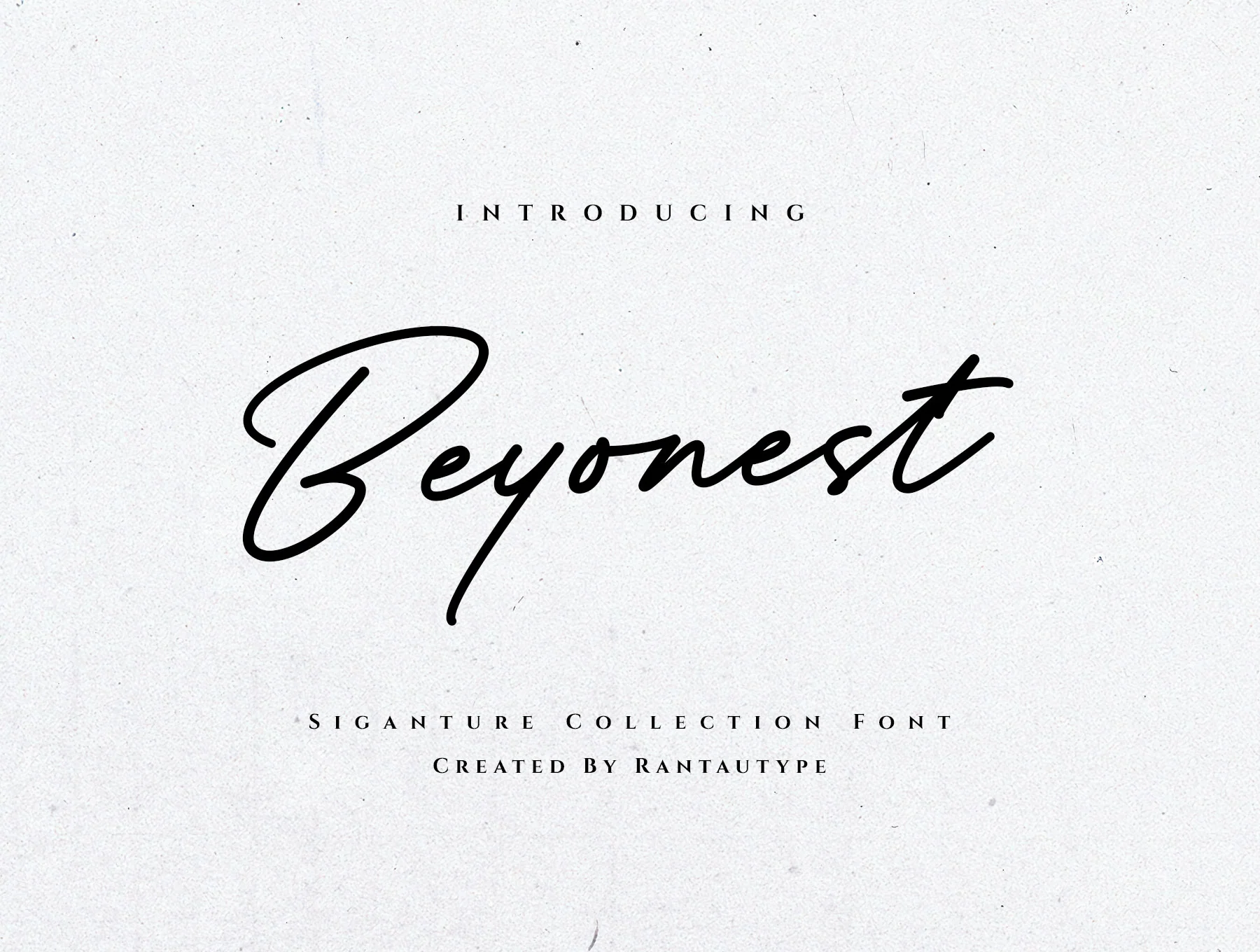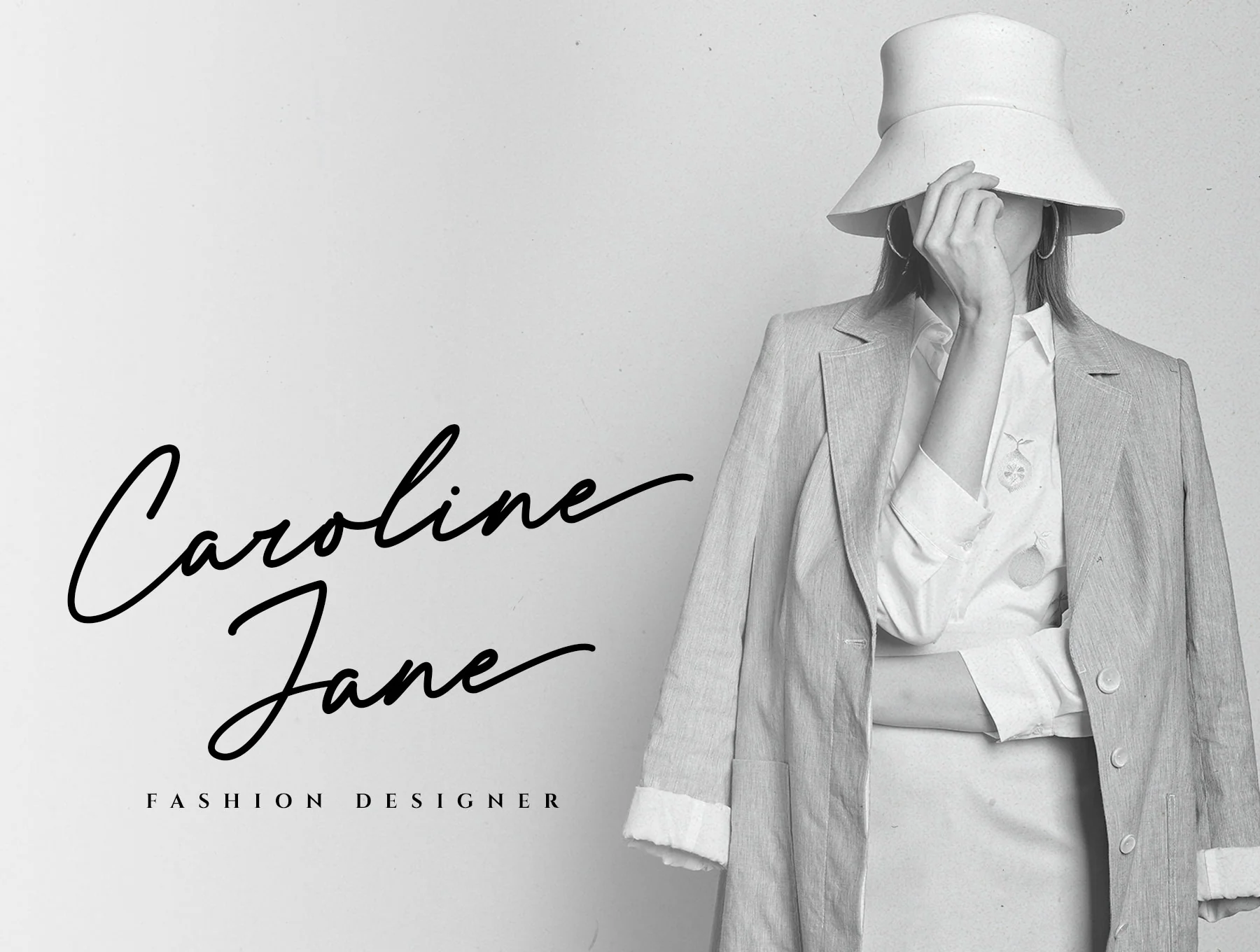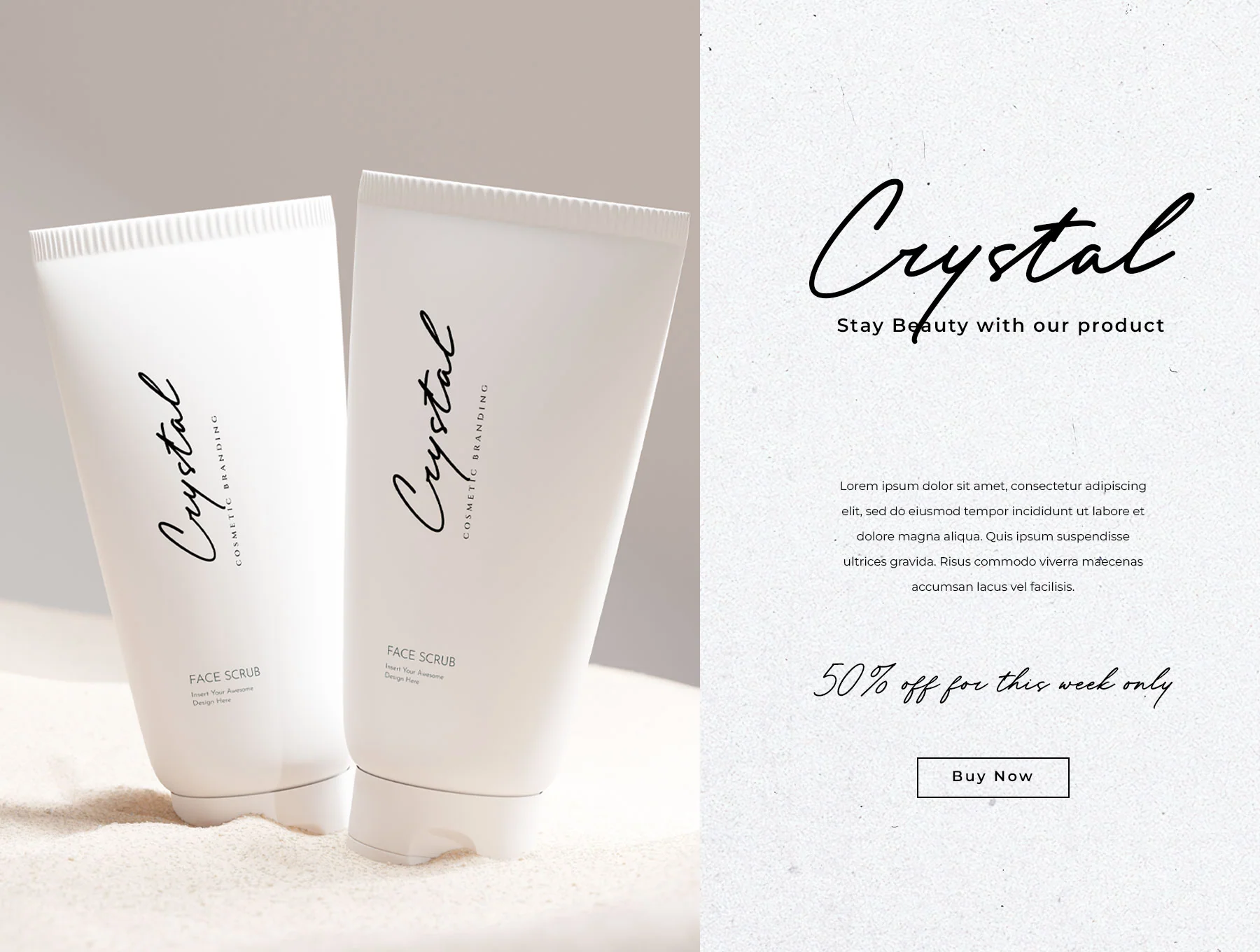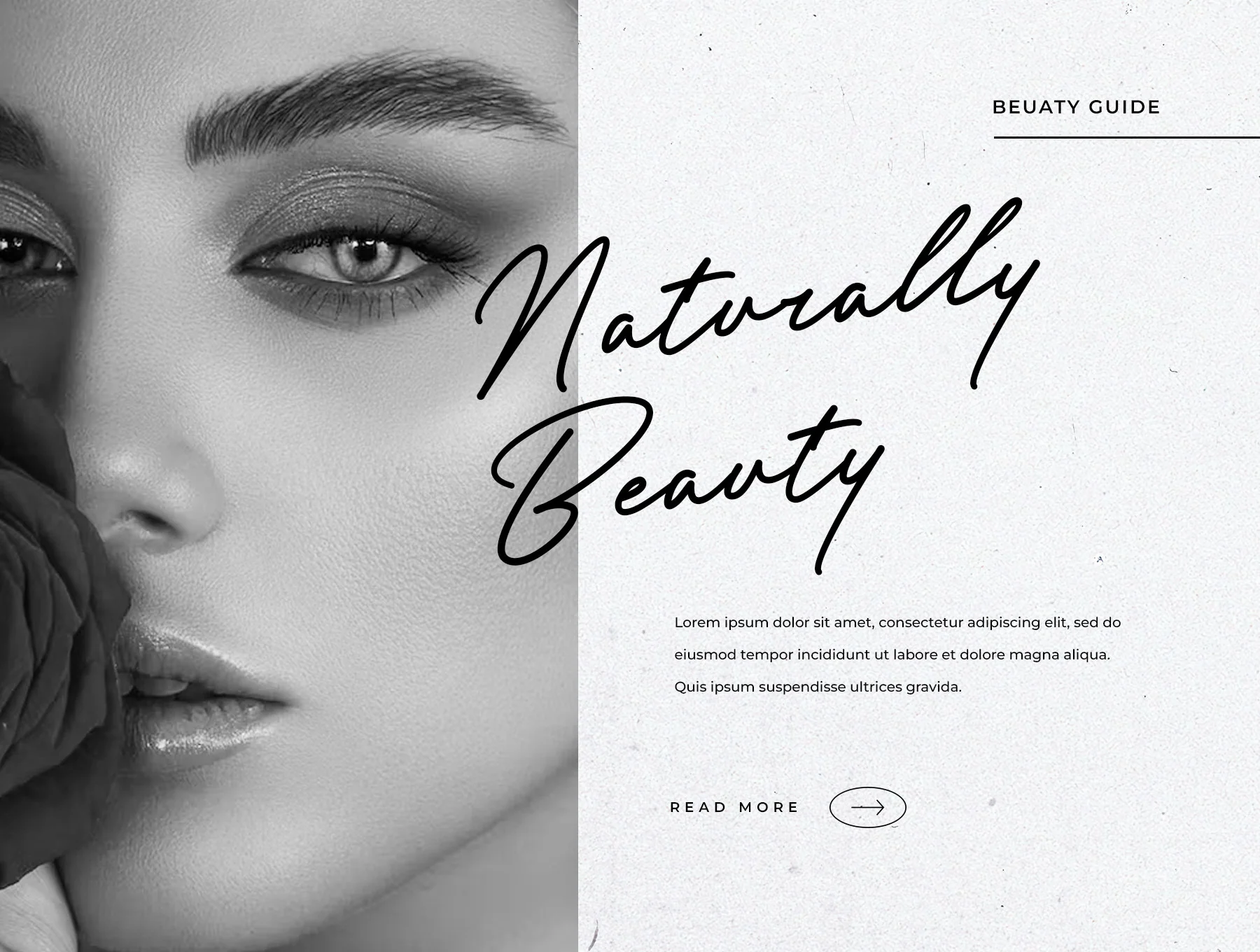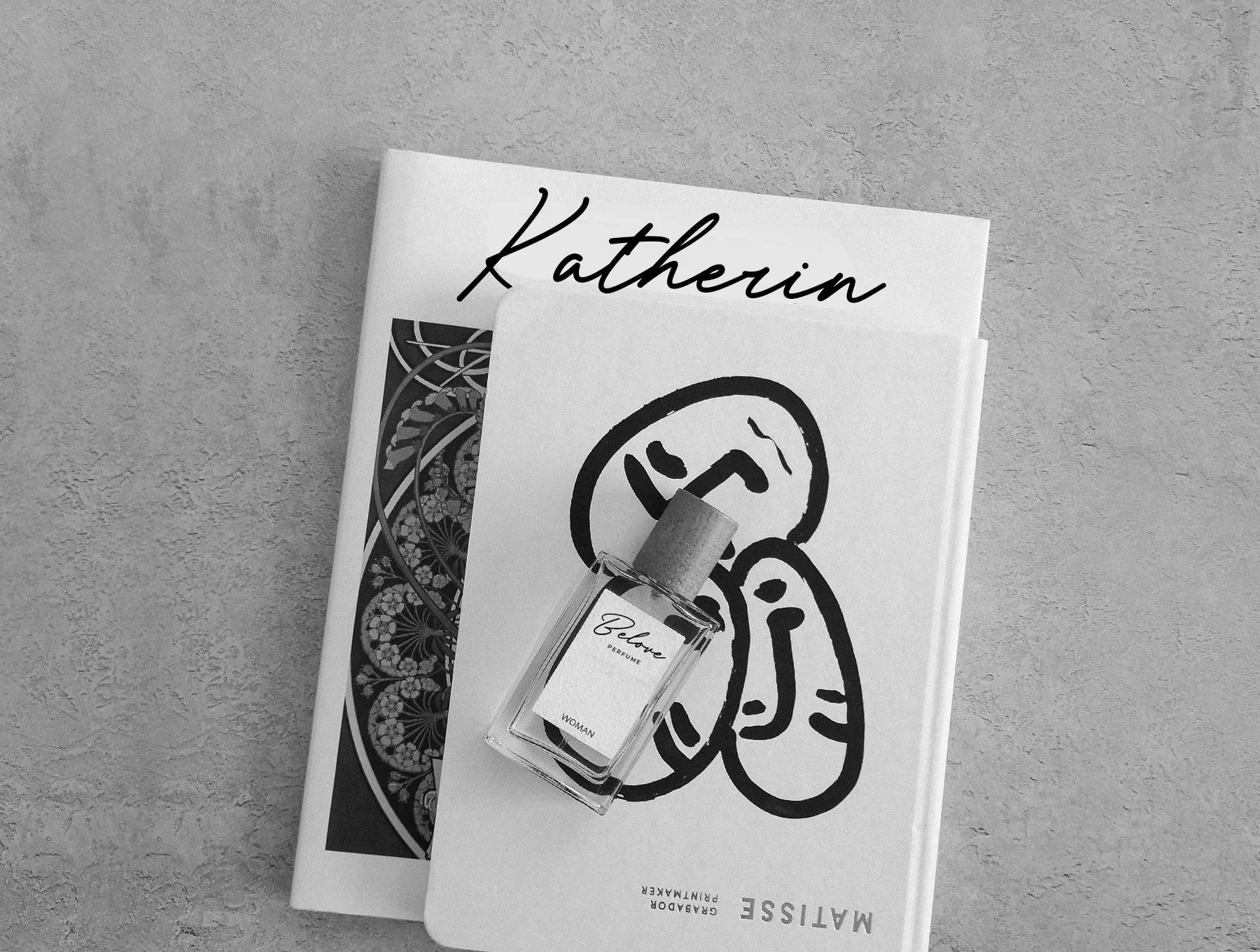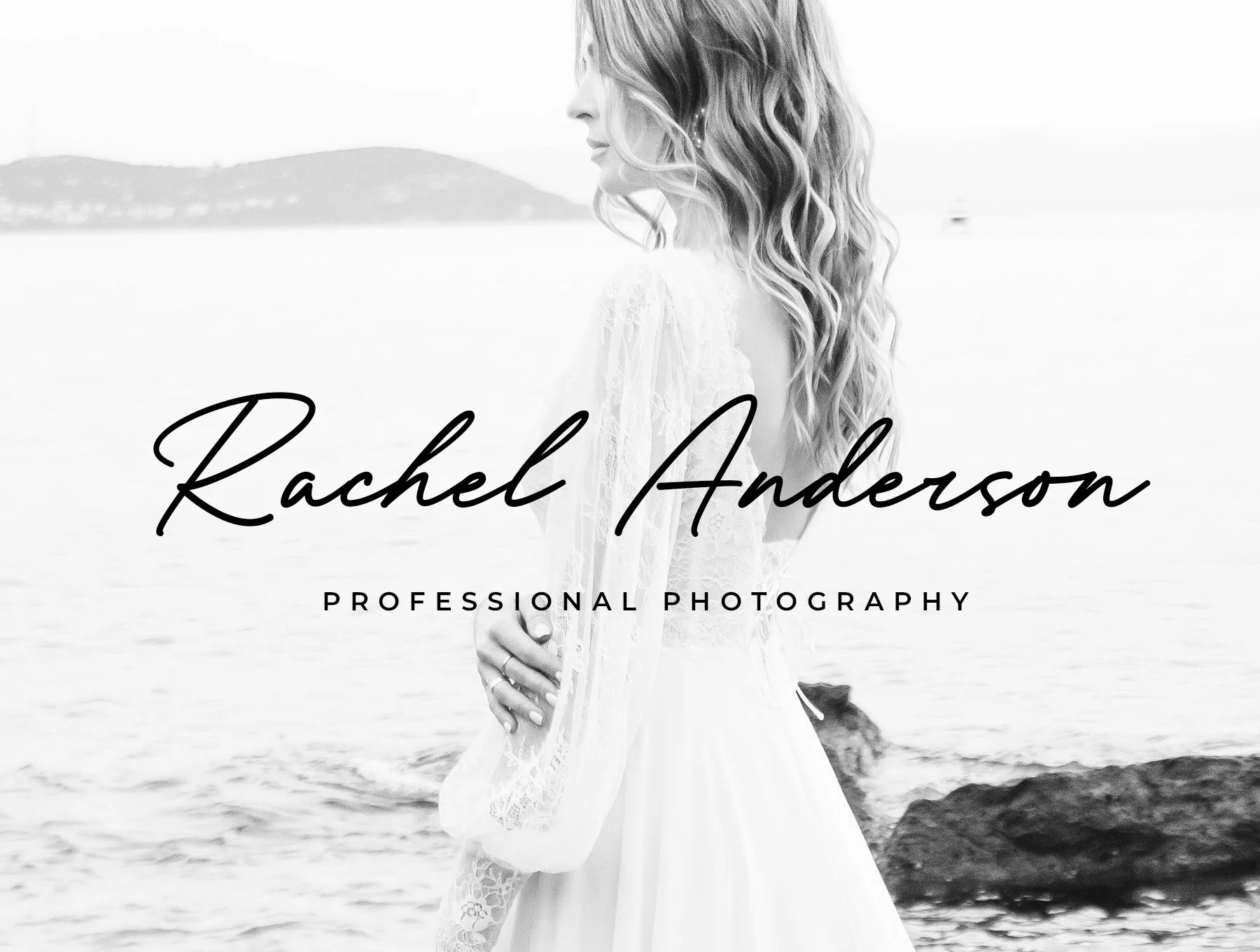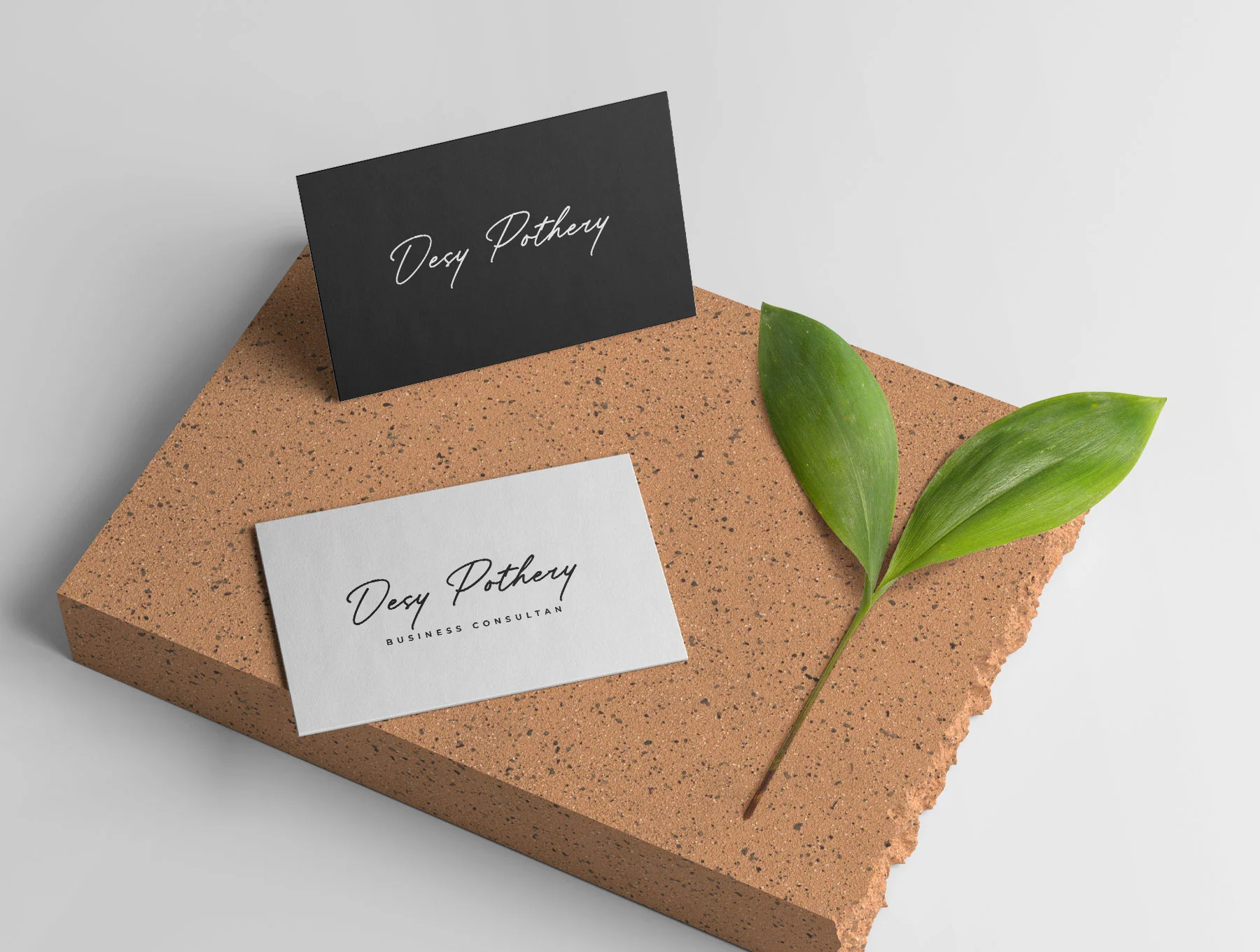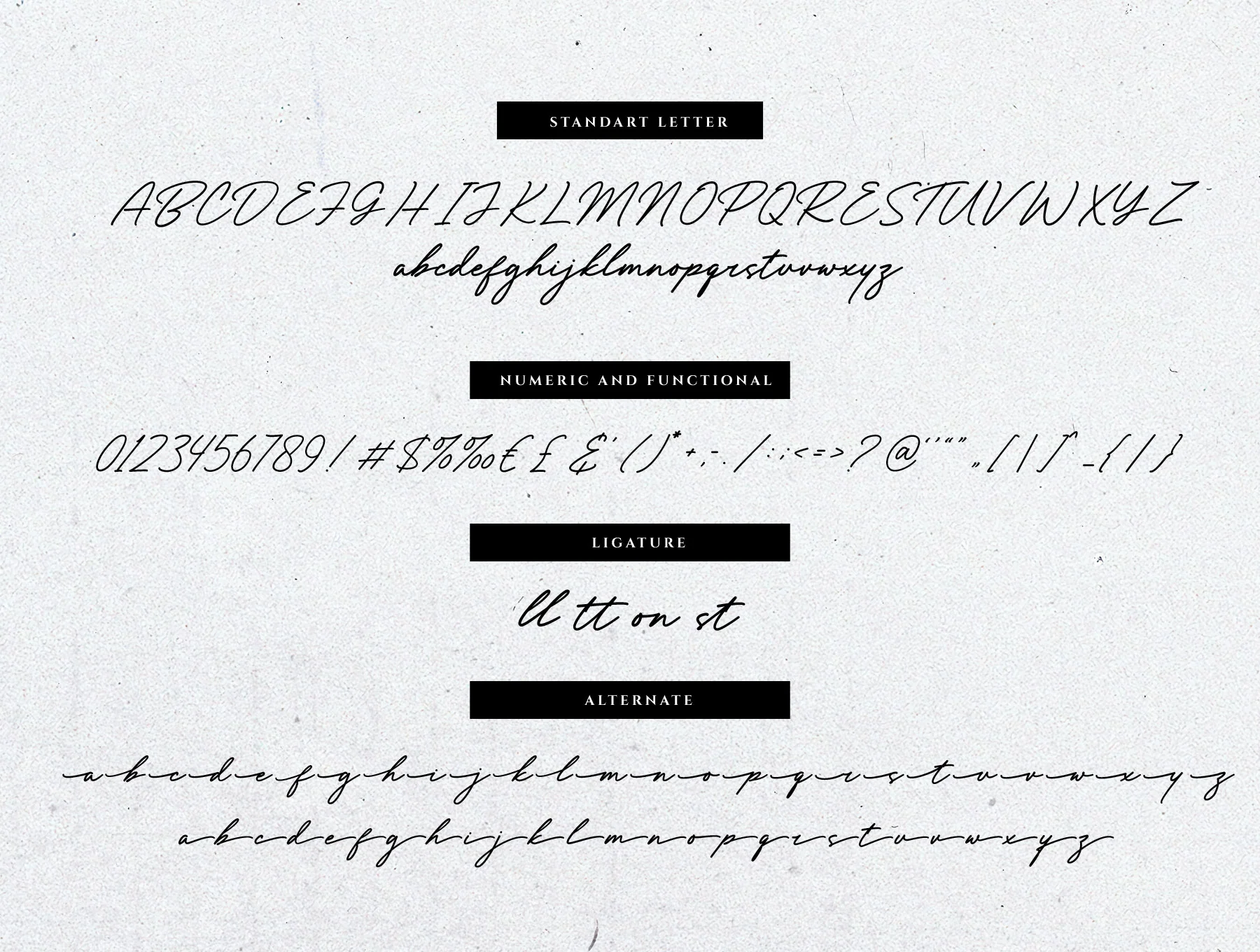
Beyonest Bold Signature Font
Beyonest Bold Signature Typeface
Standard uppercase and lowercase alphabet characters
Numerals plus functional elements
Includes alternate glyphs and ligatures
Beyonest is a sleek signature font for professional branding, blending natural curves with a modern, minimal and elegant feel. Ideal for logos, titles, photo marks, covers, magazines, weddings, quotes, album art, cards and corporate projects. Includes A–Z/a–z, numbers, symbols, ligatures, alternates, multilingual accents, plus OTF, TTF, WOFF and WOFF2 files.